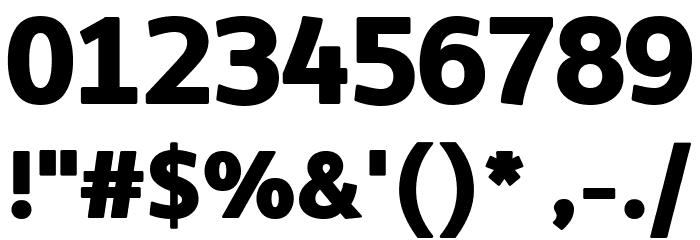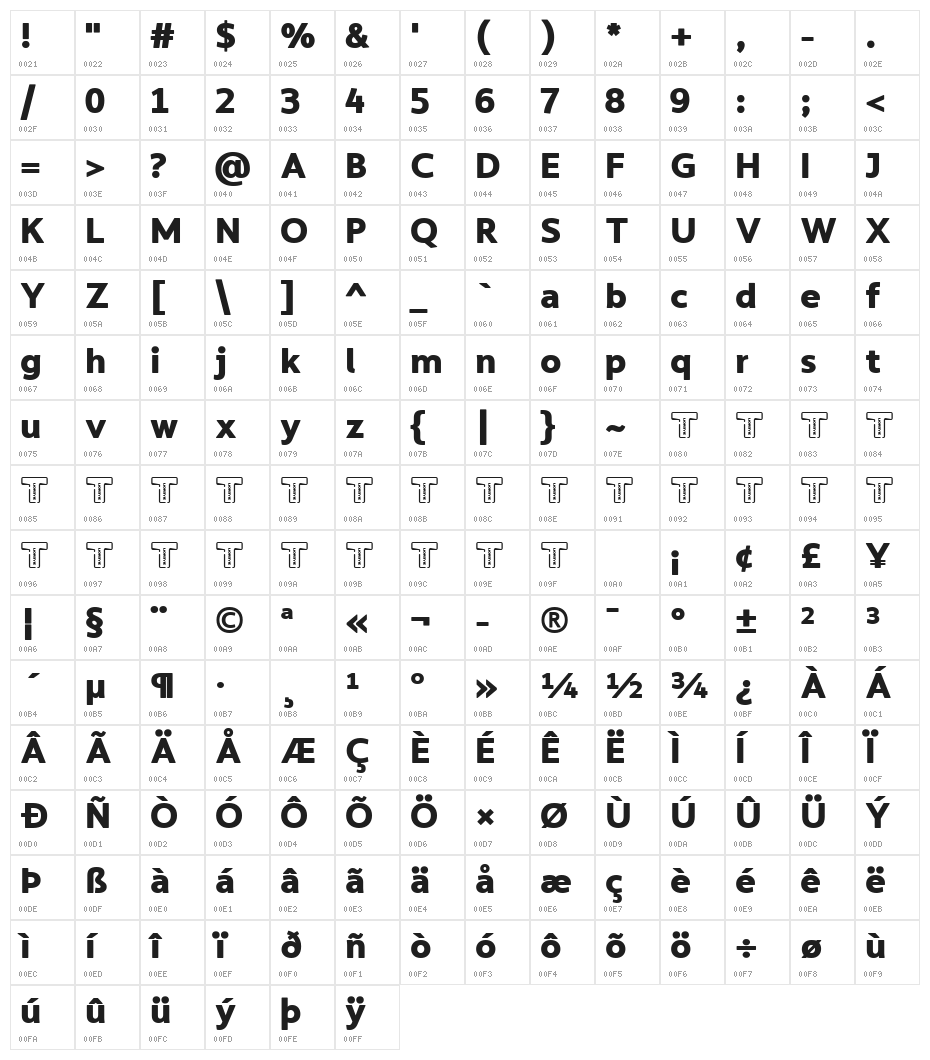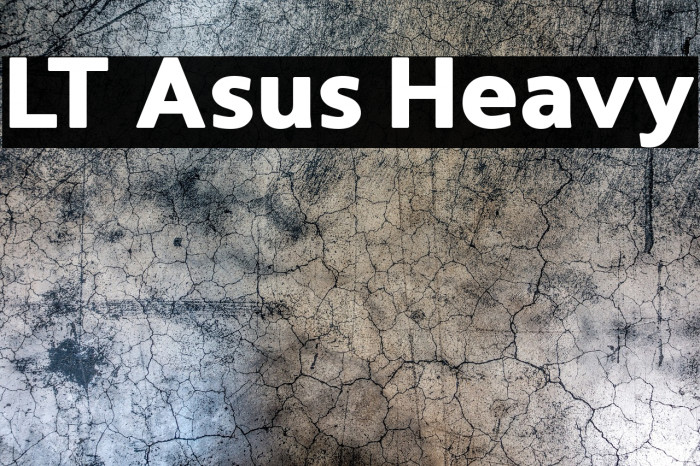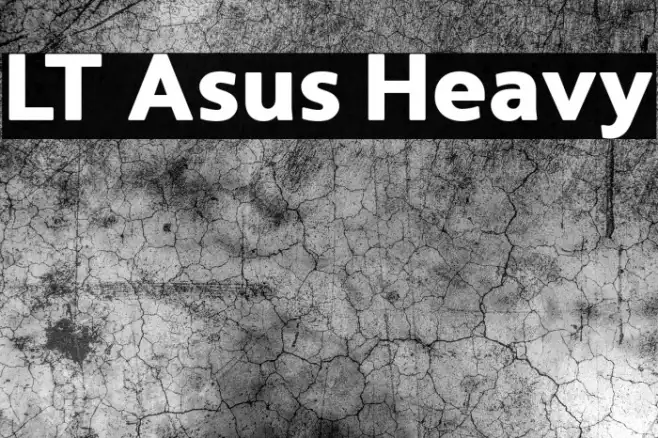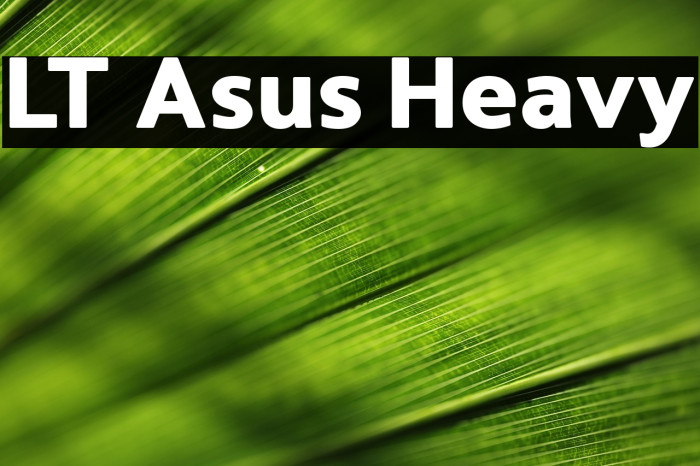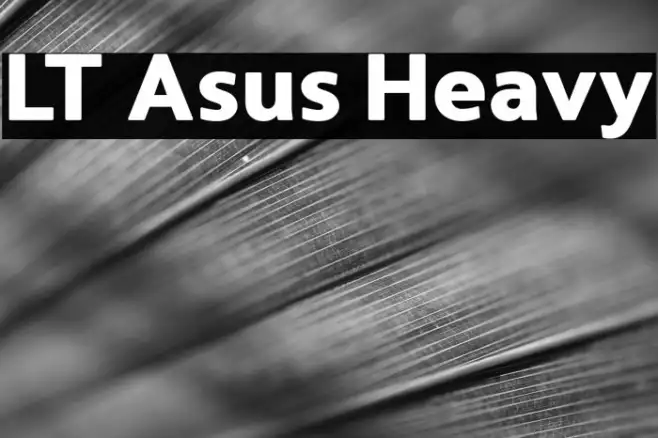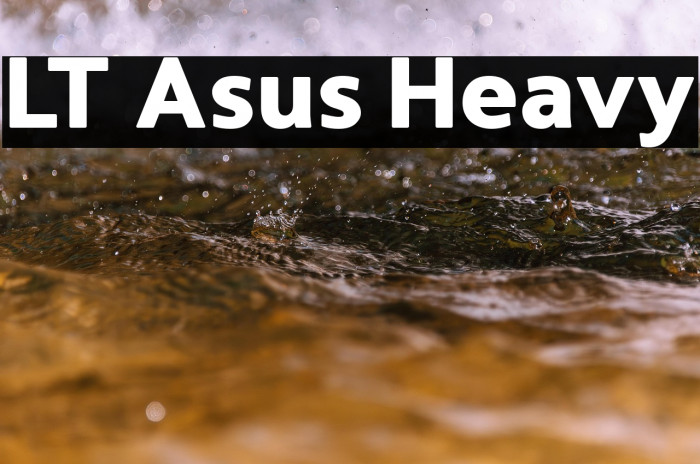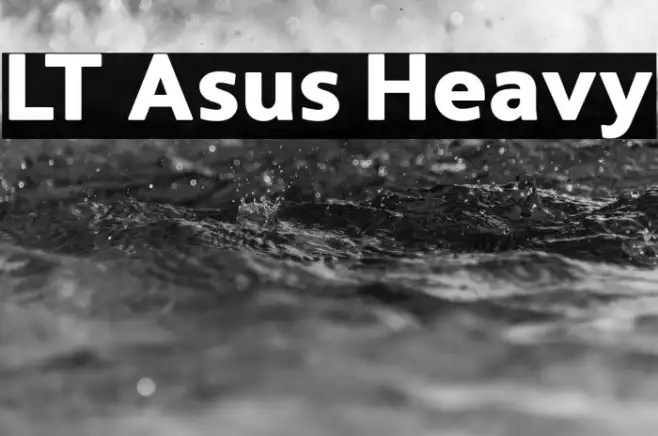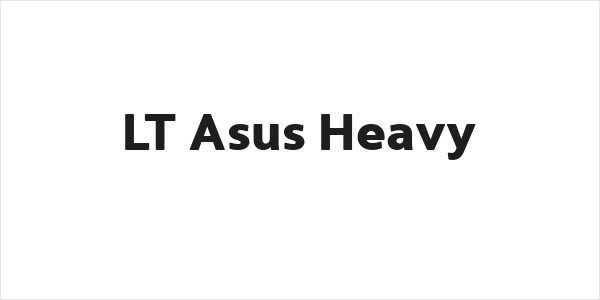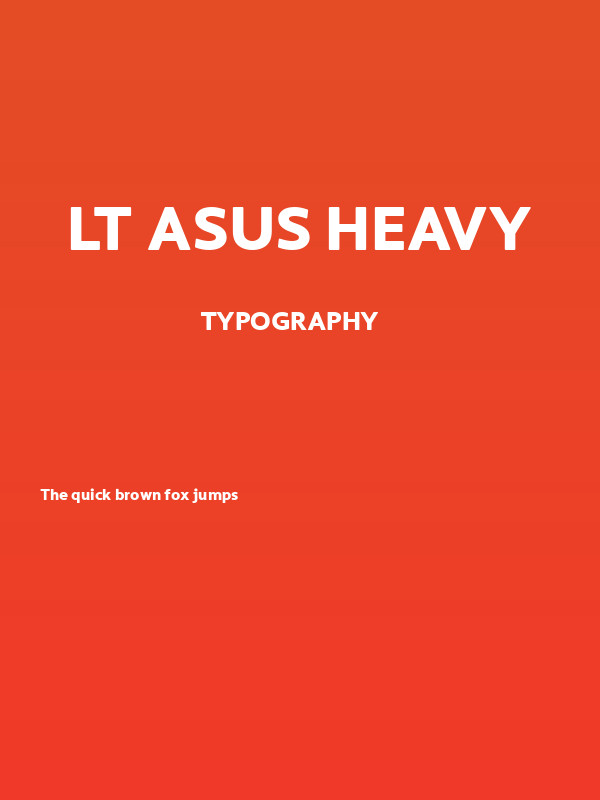
LT Asus Heavy Font
LT Asus Heavy Description
This font features a bold and robust design, characterized by its thick strokes and strong presence. The uppercase letters are uniform in height, creating a sense of stability and balance. The lowercase letters maintain a consistent weight, ensuring readability and clarity. The numerals are equally bold, matching the overall aesthetic of the alphabetic characters. Special characters are designed with the same attention to detail, providing a cohesive look across all glyphs. This font's boldness makes it suitable for impactful designs where attention is key.
| Proposed Projects | Ideal for headlines, posters, branding, and any design requiring a strong visual impact. |